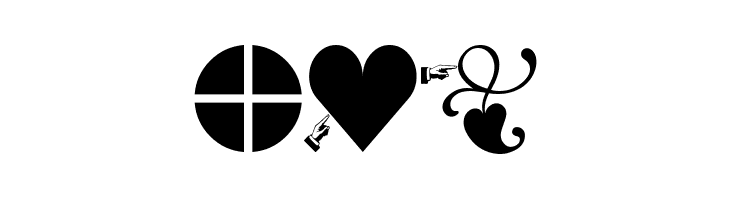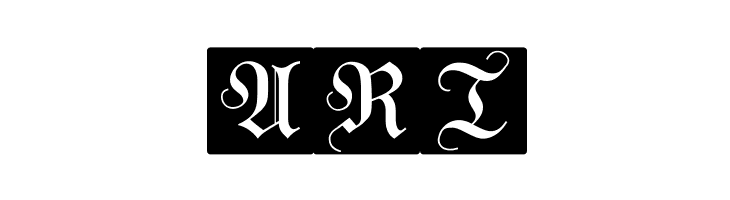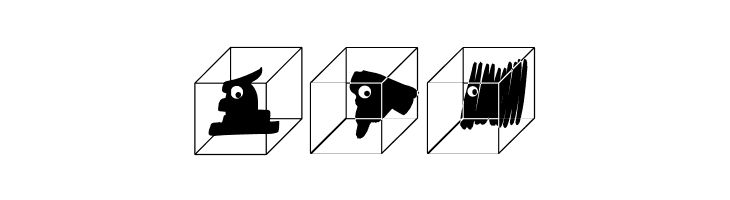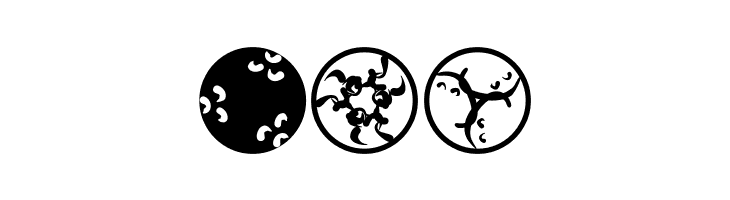
• CrossesCirclesEtc
A decorative symbol font with diverse geometric and pictorial icons.
• MusiciansFriends
A decorative font made from illustrated musical instruments.
• OldGreekButtons
A bold, decorative font with characters enclosed in circular shapes, inspired by ancient Greek designs.
• WittewittMajuscles-FlourishBricks
A decorative blackletter font with intricate flourishes and high contrast strokes.
• ZooCages
A playful and decorative set of animal illustrations within cubes.
• ModernArts
An illustrative, scene-based decorative font with modern art themes.
• BusyPeople01
Business-themed pictogram font with office and teamwork silhouettes.
• MAnimalsK
Decorative font with ancient-style animal illustrations.
• RosettaCalligraphiaOne
Abstract, circular symbol font with high-contrast decorative motifs.
• Cyclopish
Whimsical dingbat font with cyclops and monster illustrations.